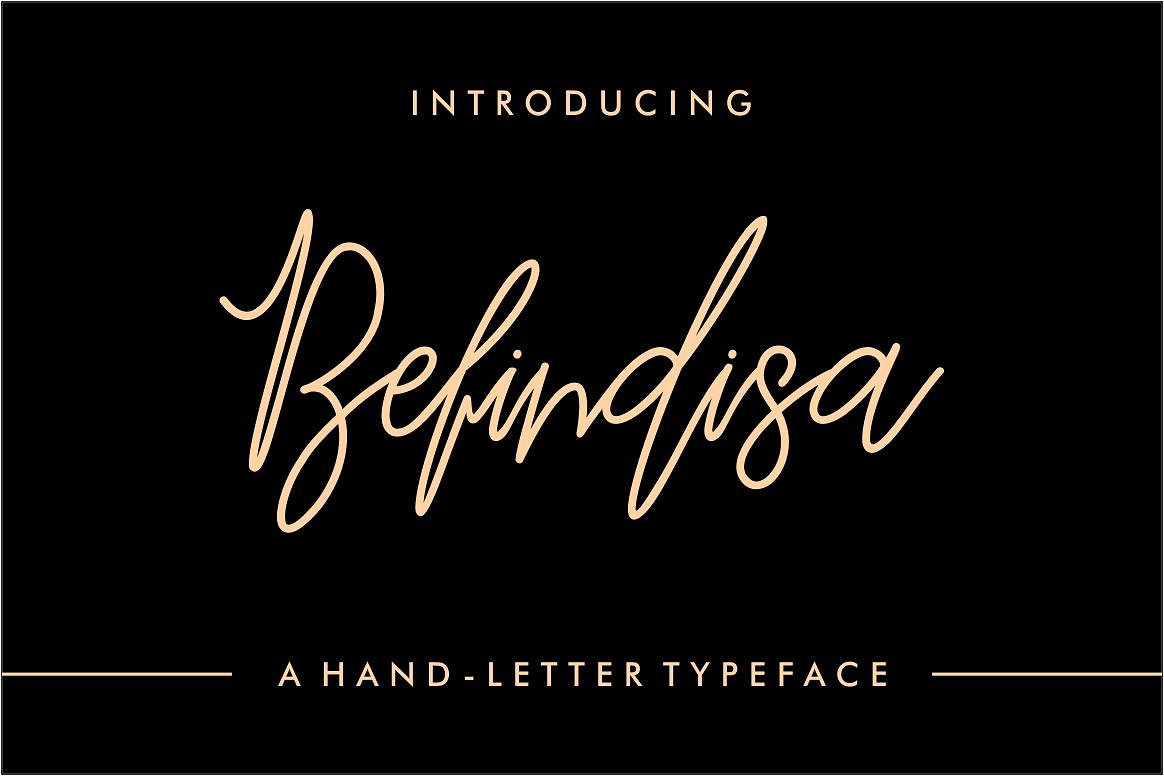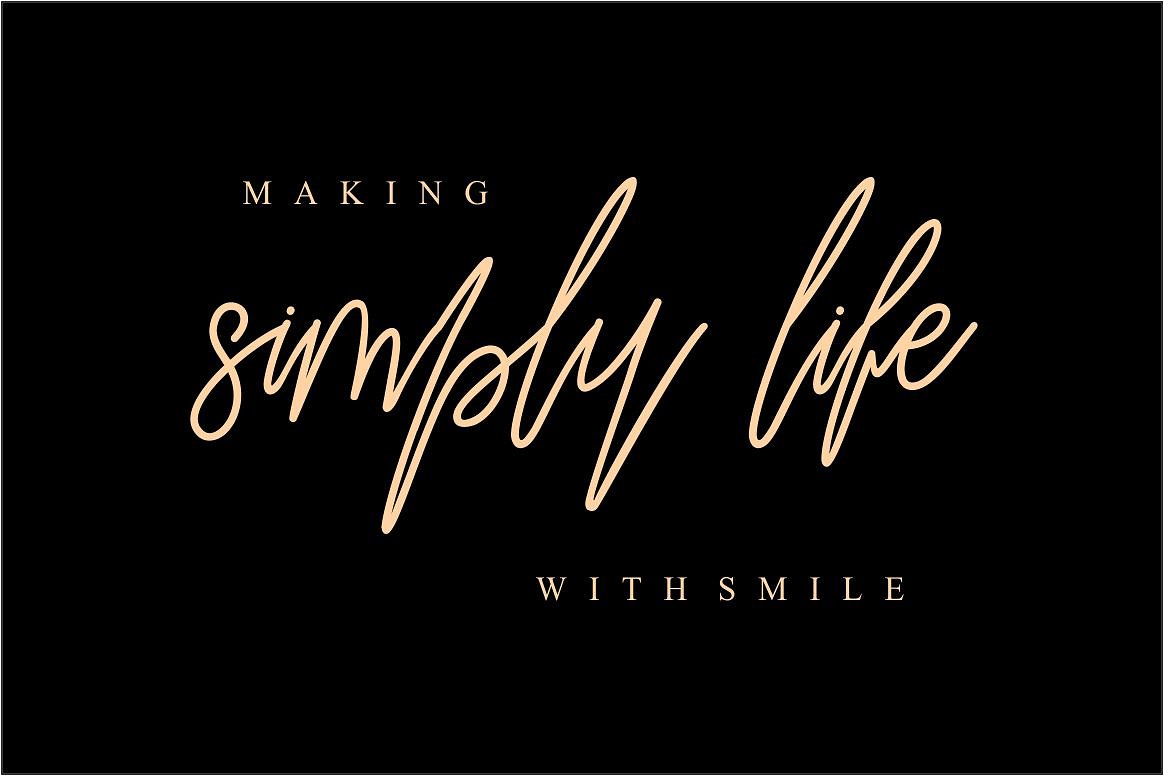
Befindisa Handwriting Font
Introducing Befindisa is hand-letter script font, every single letters have been carefully crafted to make your text looks beautiful. handwriting style will be very suitable for quotes, poster, wedding, branding, logo, fashion, apparel, letter, invitation, stationery, etc.